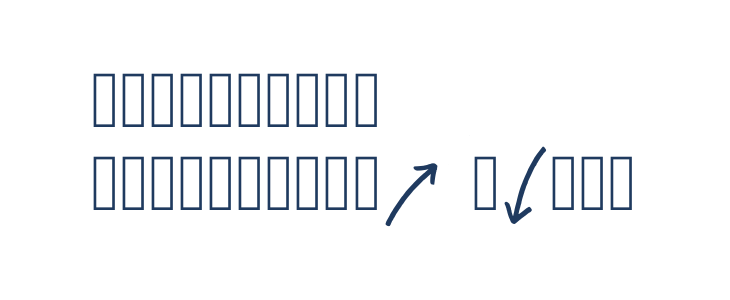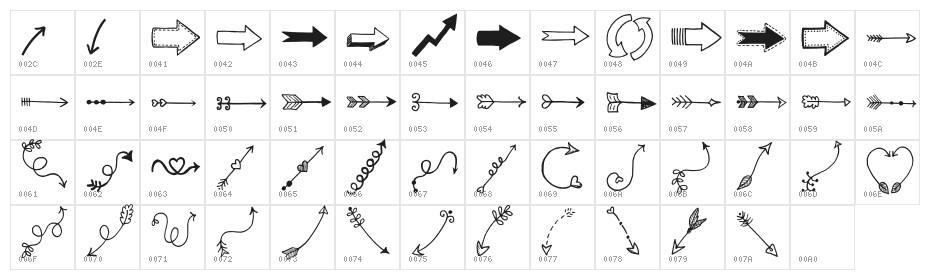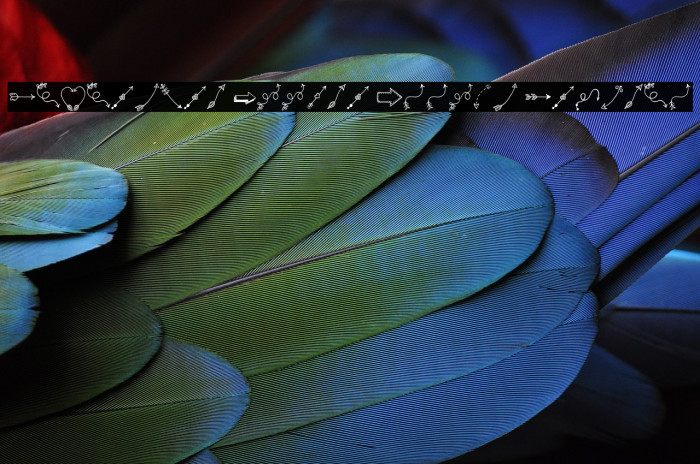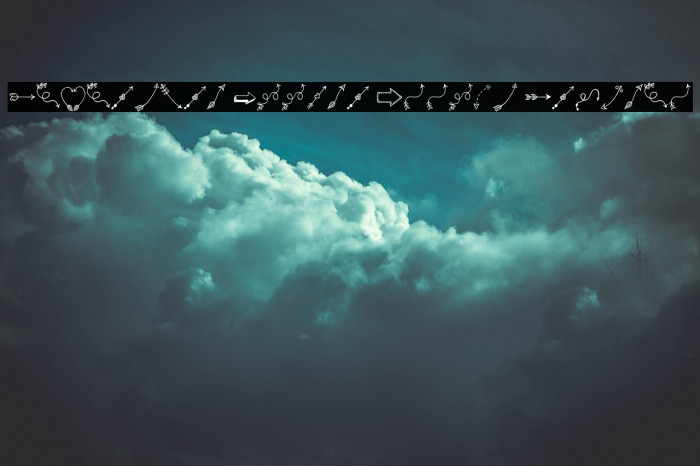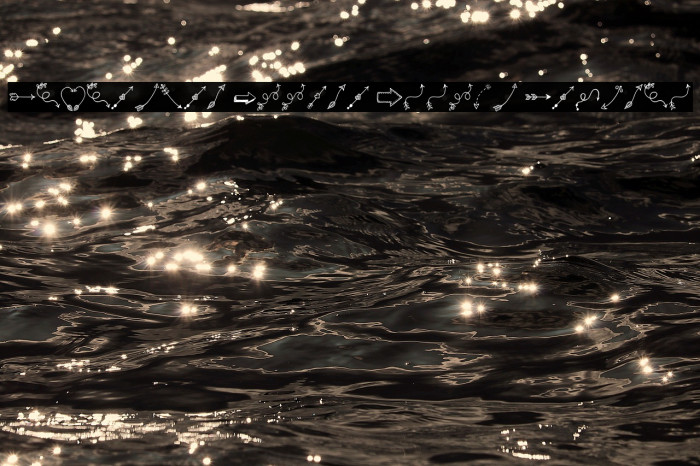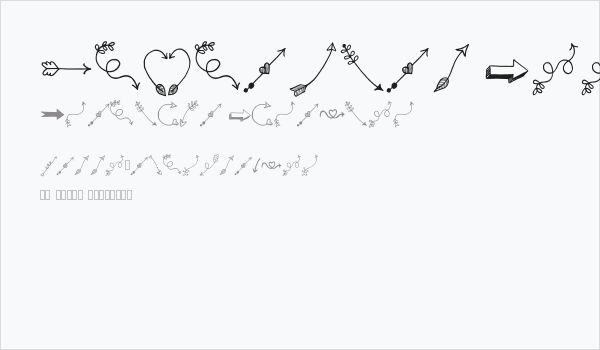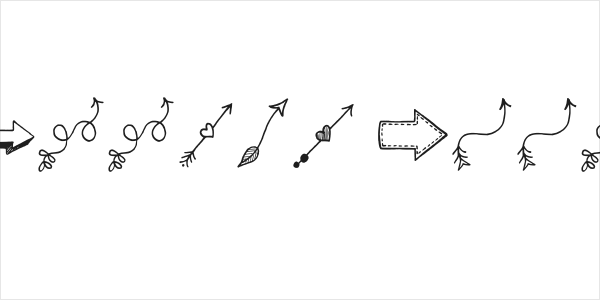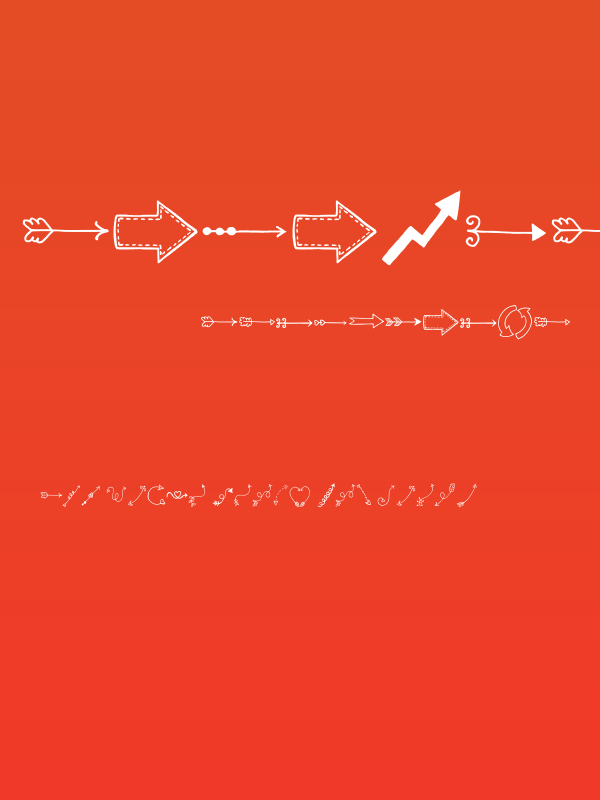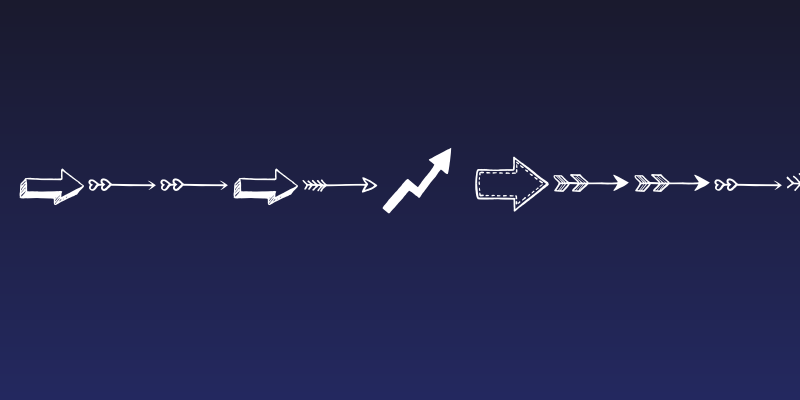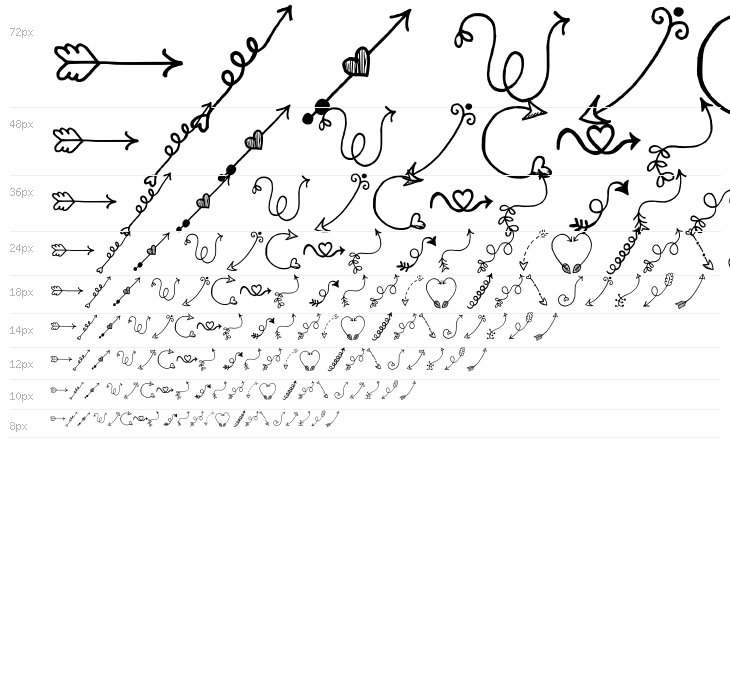
Tanaestel Doodle Arrows Regular Font
Tanaestel Doodle Arrows Regular Description
This collection features a playful and whimsical set of hand-drawn arrows, each with unique decorative elements. The arrows vary in style, incorporating elements like hearts, swirls, and zigzags, giving them a doodle-like appearance. The designs range from simple, bold lines to intricate patterns with dots and curves. This set is perfect for adding a creative touch to any project, offering a variety of styles to suit different themes. The arrows are dynamic and expressive, making them ideal for projects that require a fun and informal aesthetic.
| Use Case | Logos, Illustrations, Creative projects |
| Proposed Projects | Ideal for creative projects such as scrapbooking, invitations, digital art, and educational materials. |